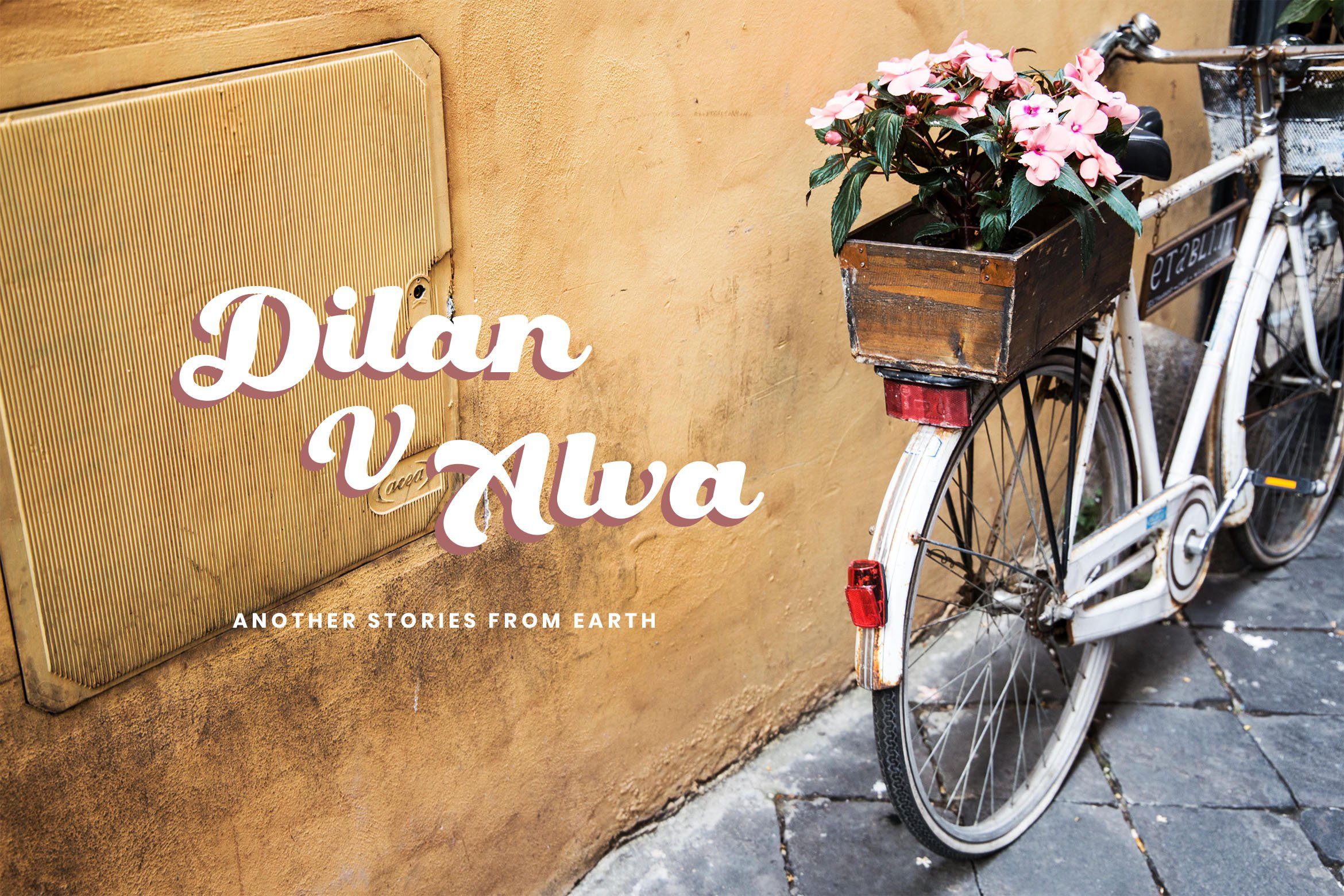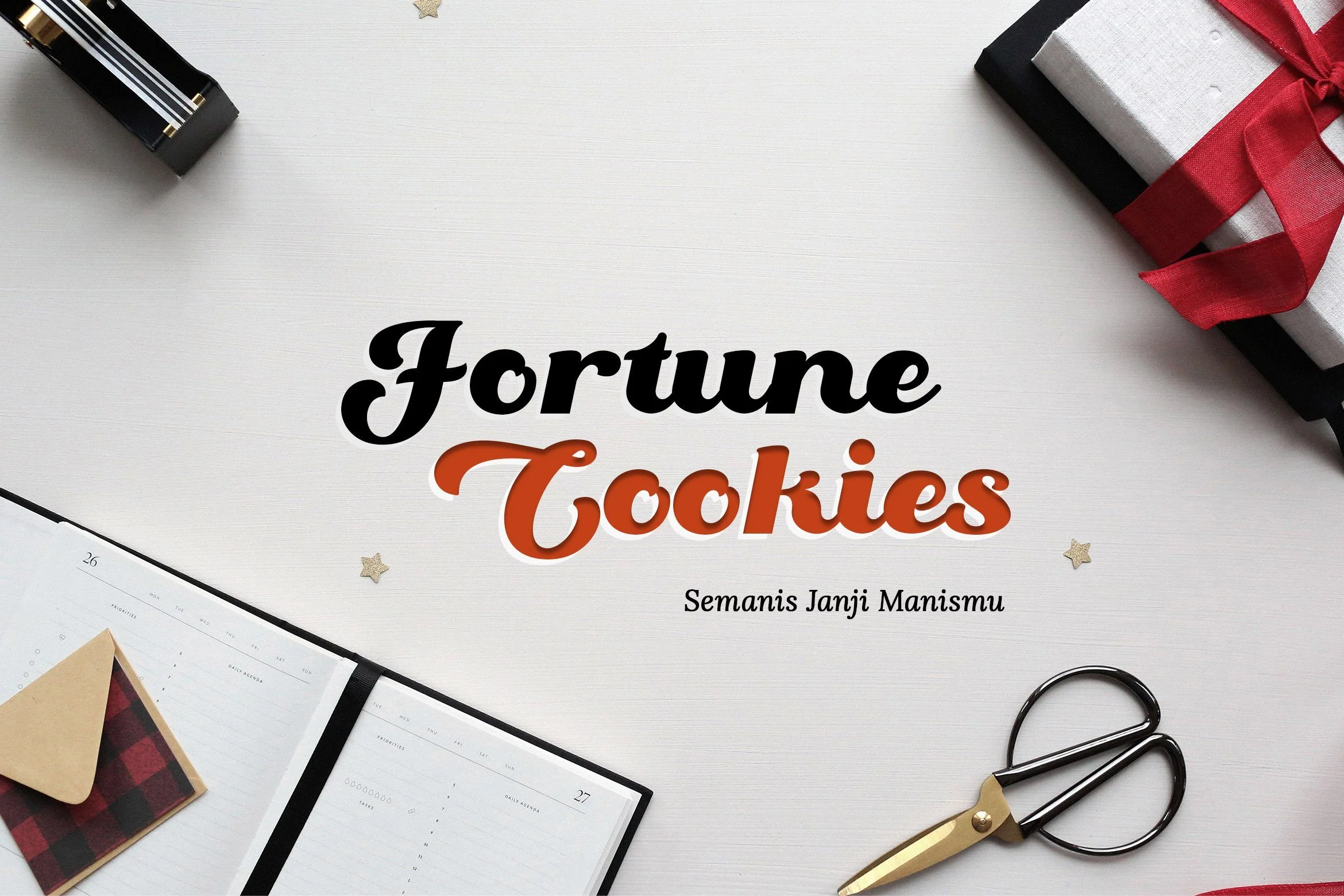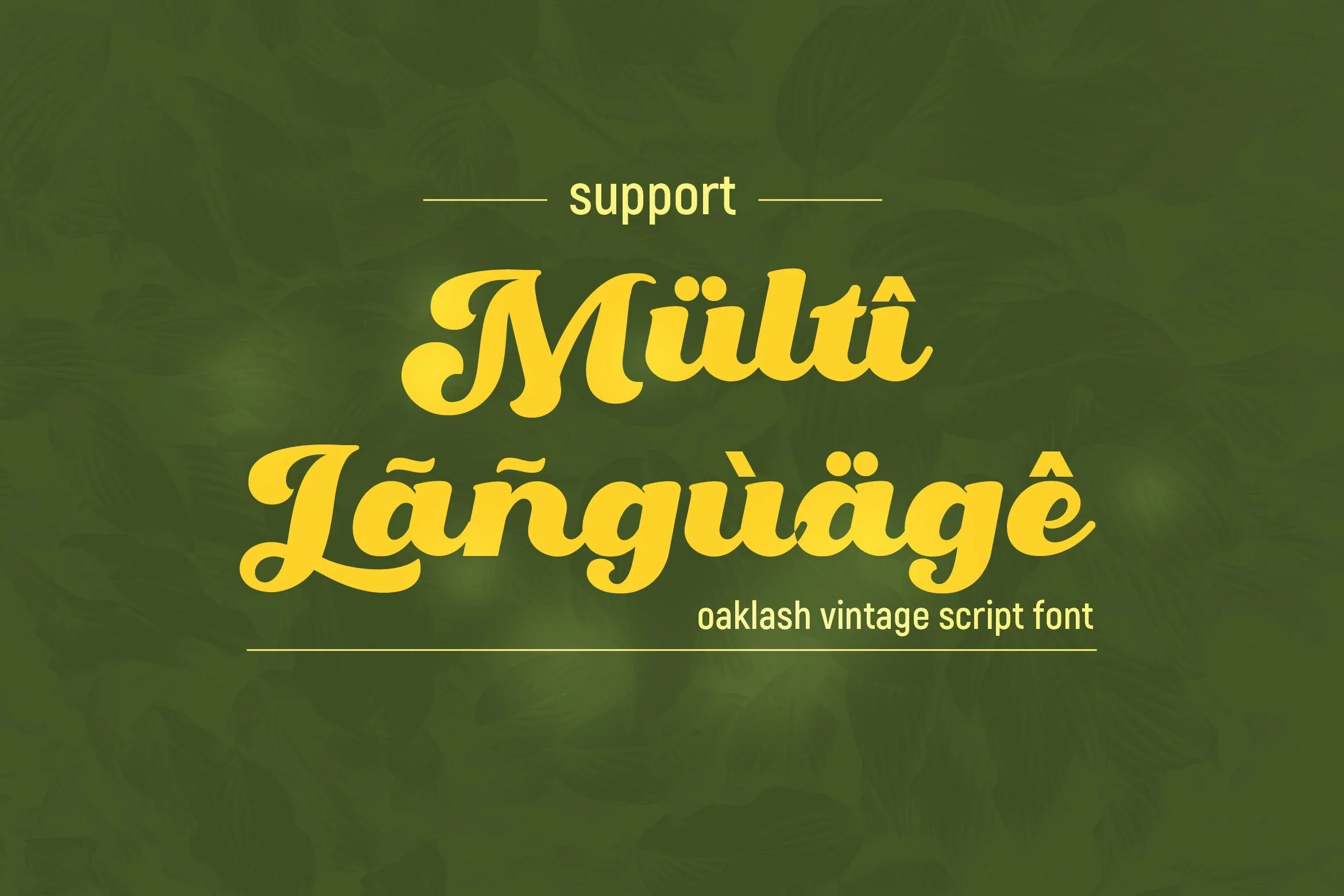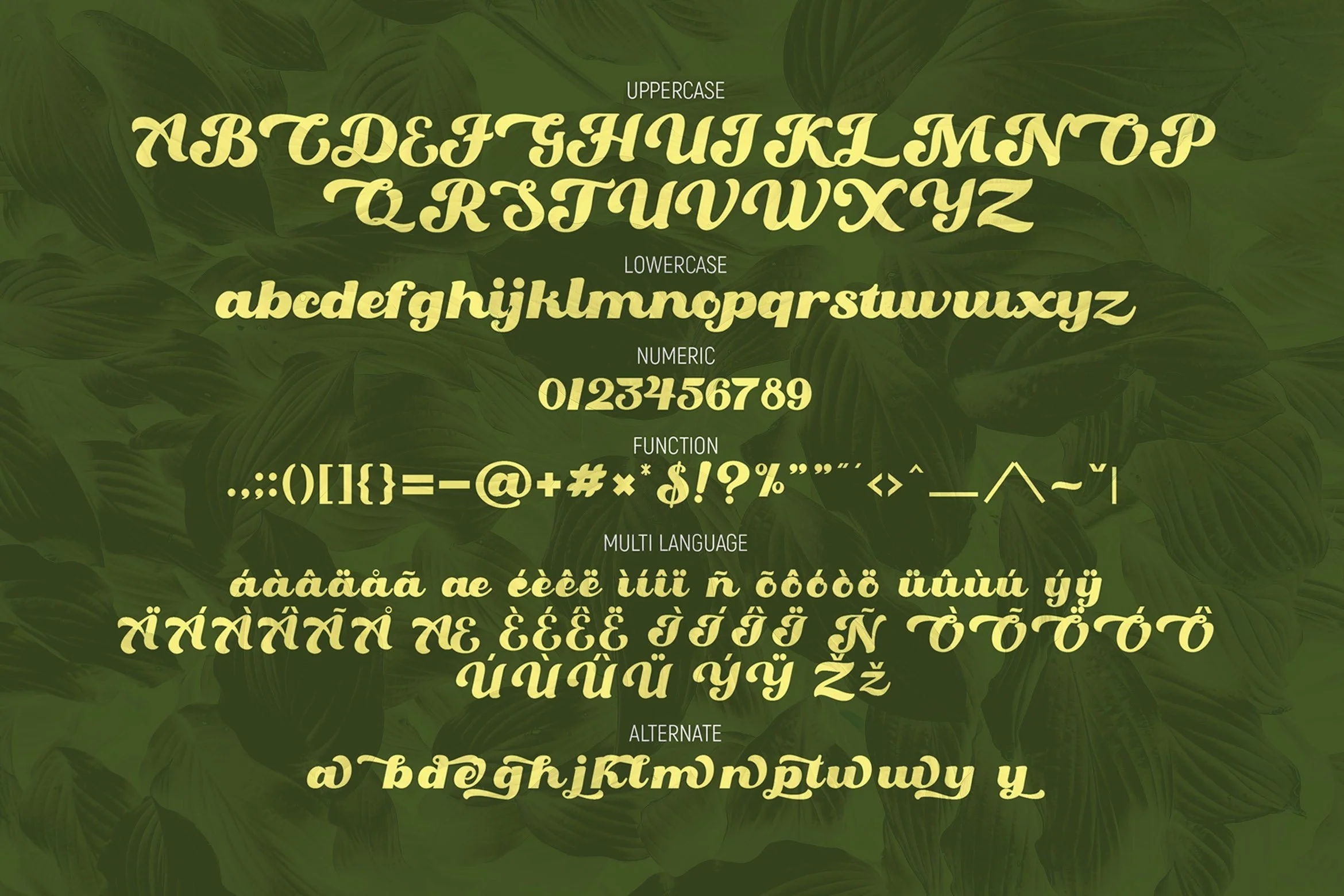
Oaklash - Retro Bold Script Font
Introducing Oaklash - Retro Bold Script Font
Oaklash is made with a unique taste and combined with the classic retro style of the 80s making this font look casual, trendy, and sporty. Oaklash is perfect for vintage lovers, besides this font is also perfect if used for brands such as: barbershop, motorcycle club, clothing, coffee shop, shoe brands, and many more.
This Font Template contains Classy, Elegant, Creative, Cool and has a Unique Concept.
- Alternate Characters
Introducing Oaklash - Retro Bold Script Font
Oaklash is made with a unique taste and combined with the classic retro style of the 80s making this font look casual, trendy, and sporty. Oaklash is perfect for vintage lovers, besides this font is also perfect if used for brands such as: barbershop, motorcycle club, clothing, coffee shop, shoe brands, and many more.
This Font Template contains Classy, Elegant, Creative, Cool and has a Unique Concept.
- Alternate Characters